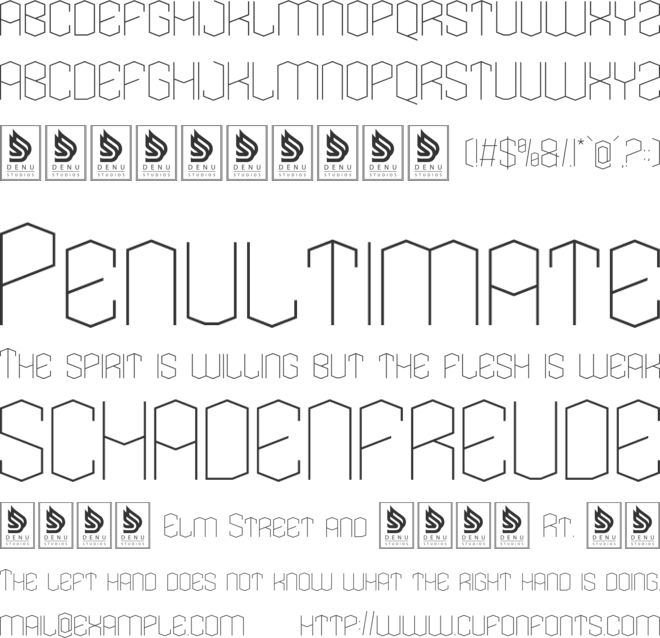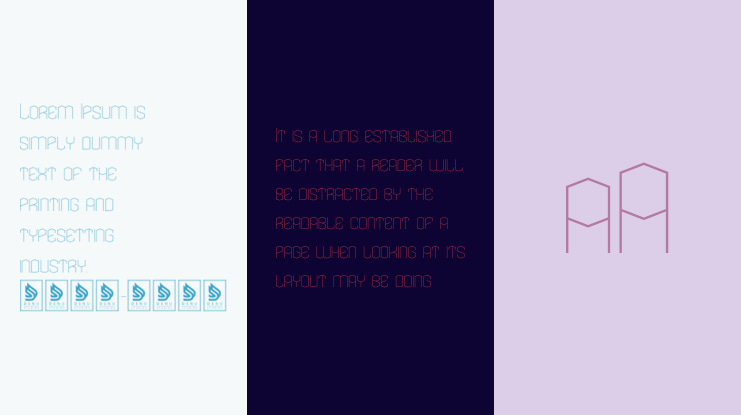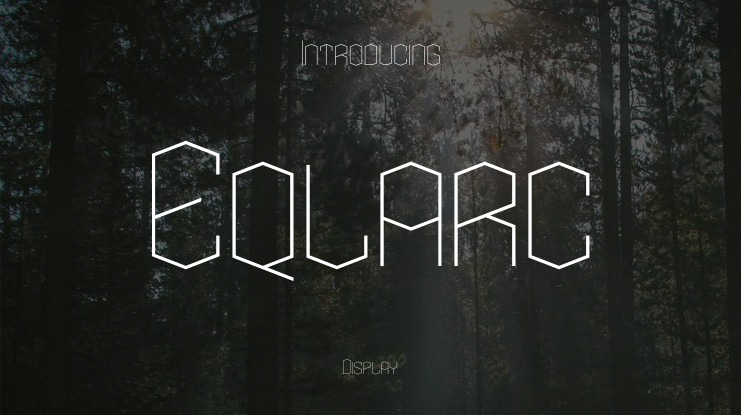
Eqlarc | Futuristic Geometric Is Suitable For Any Projects Such As: Logos, Branding Projects, Homeware Designs, Product Packaging, Mugs, Quotes, Posters, Shopping Bags, T-Shirts, Book Covers, Name Card, Invitation Cards, Greeting Cards, Label, Photography, Watermark, Special Events, And All Your Other Lovely Projects That Need A Futuristic Geometric Taste.